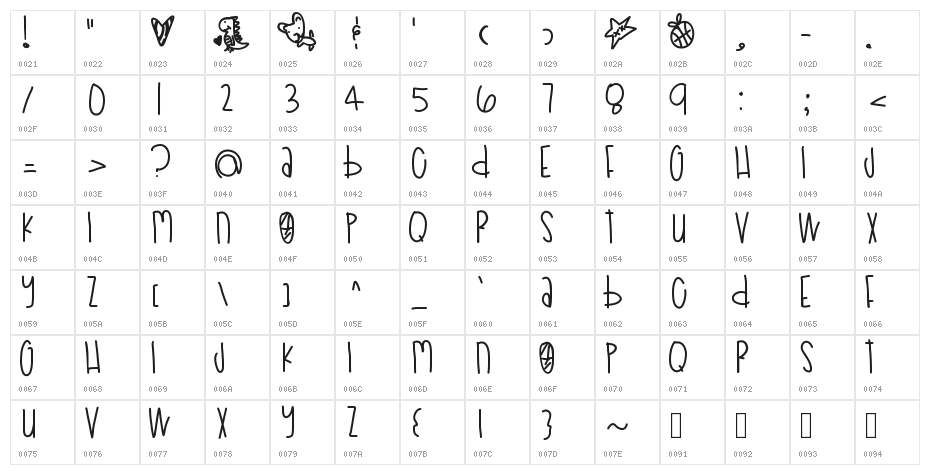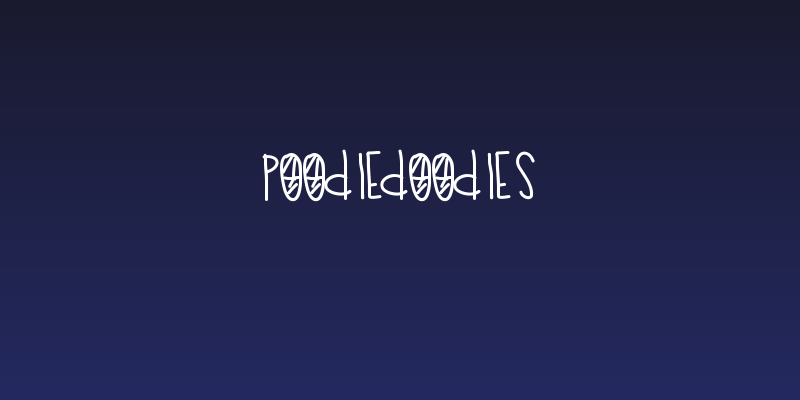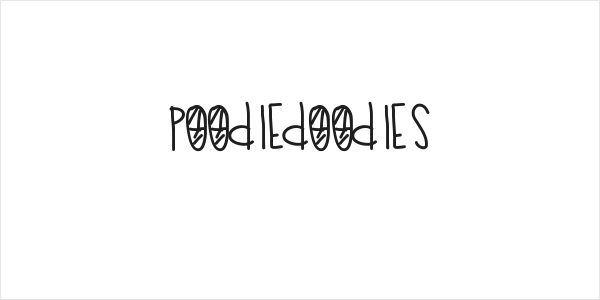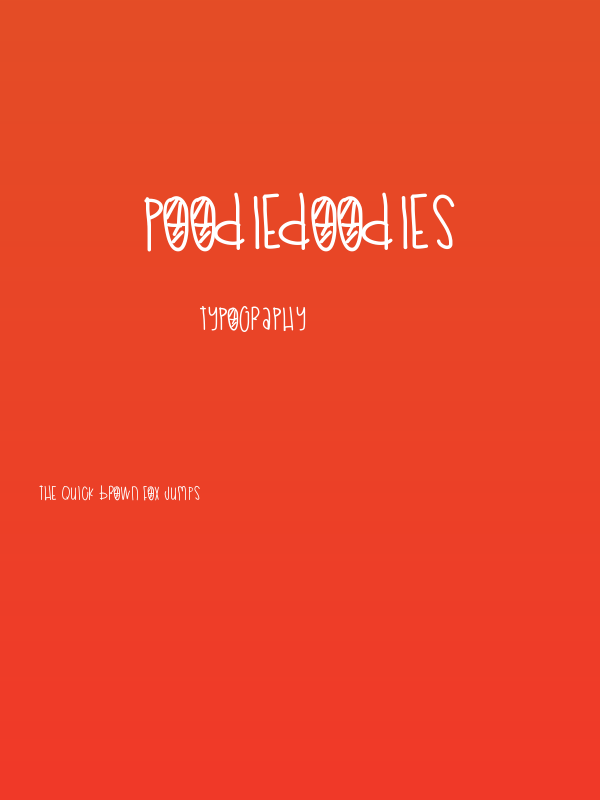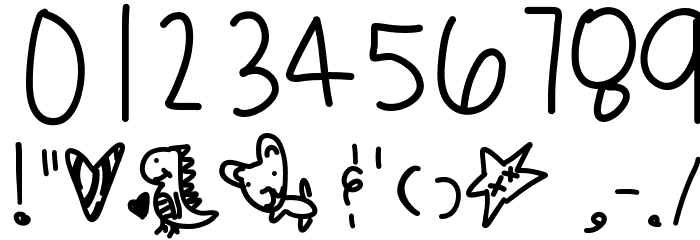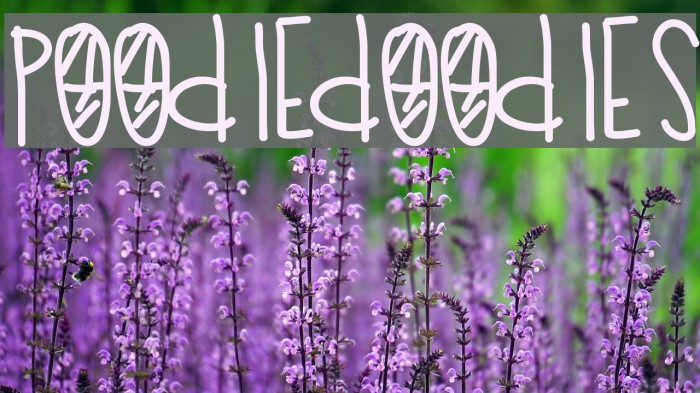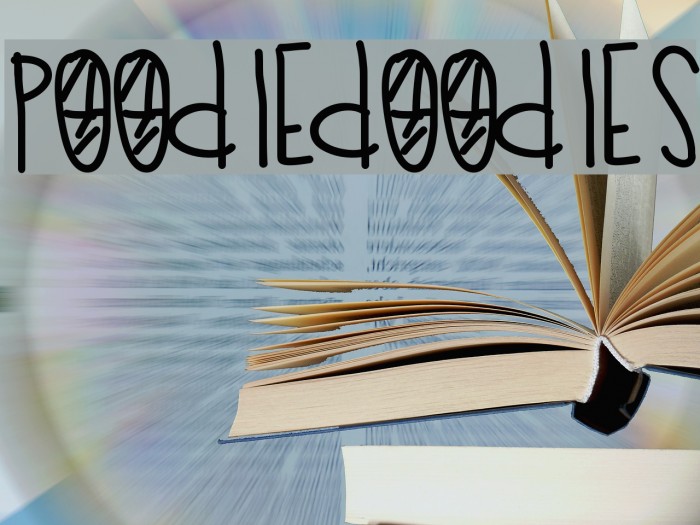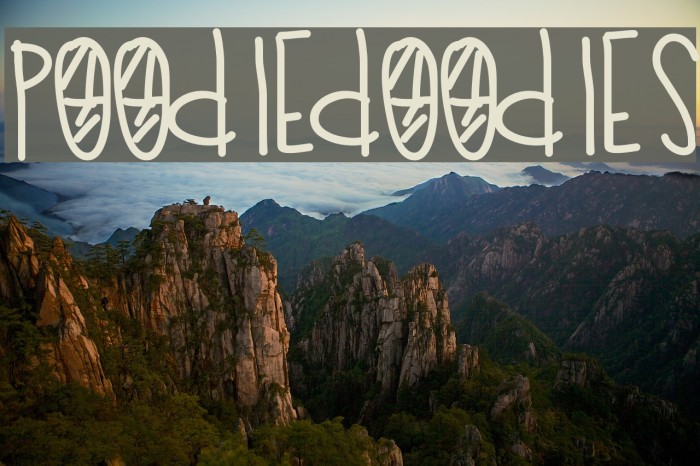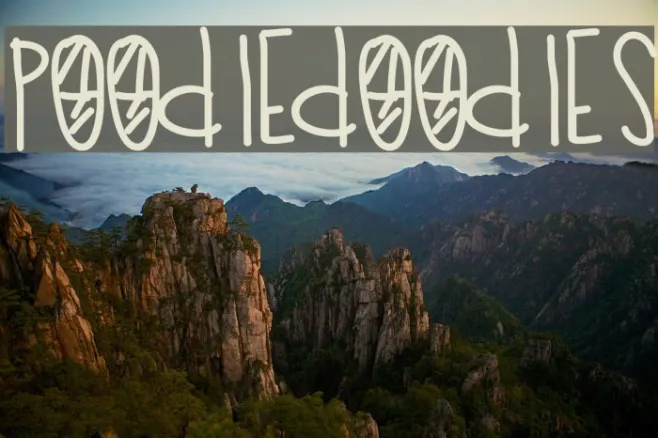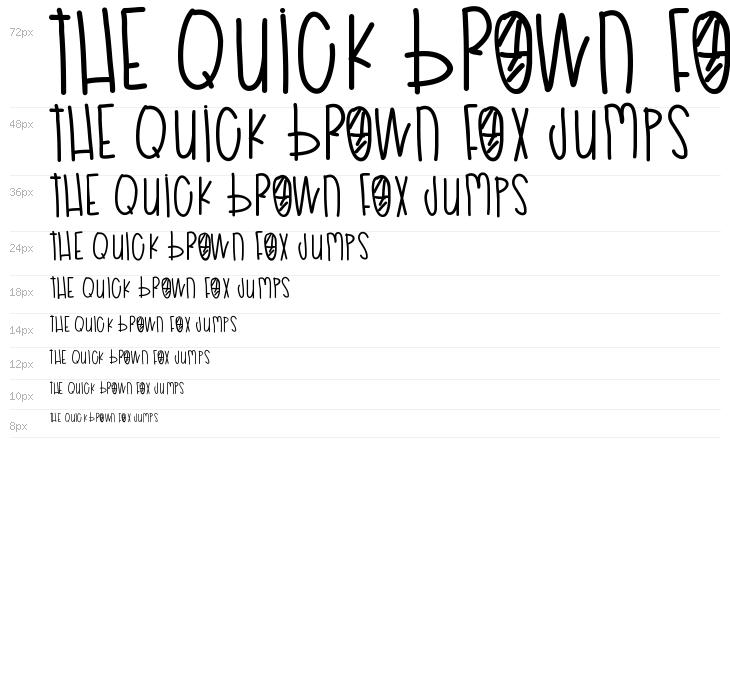
PoodleDoodles Font
PoodleDoodles Description
This playful and whimsical font features a hand-drawn, doodle-like style with irregular, organic shapes. The characters are tall and narrow, with a casual, informal appearance that adds a sense of fun and creativity. The uppercase and lowercase letters maintain a consistent style, with rounded edges and a slightly uneven baseline, enhancing the hand-crafted feel. The numbers and special characters are equally playful, incorporating unique and imaginative designs that complement the overall aesthetic. This font is perfect for projects that require a light-hearted and artistic touch.